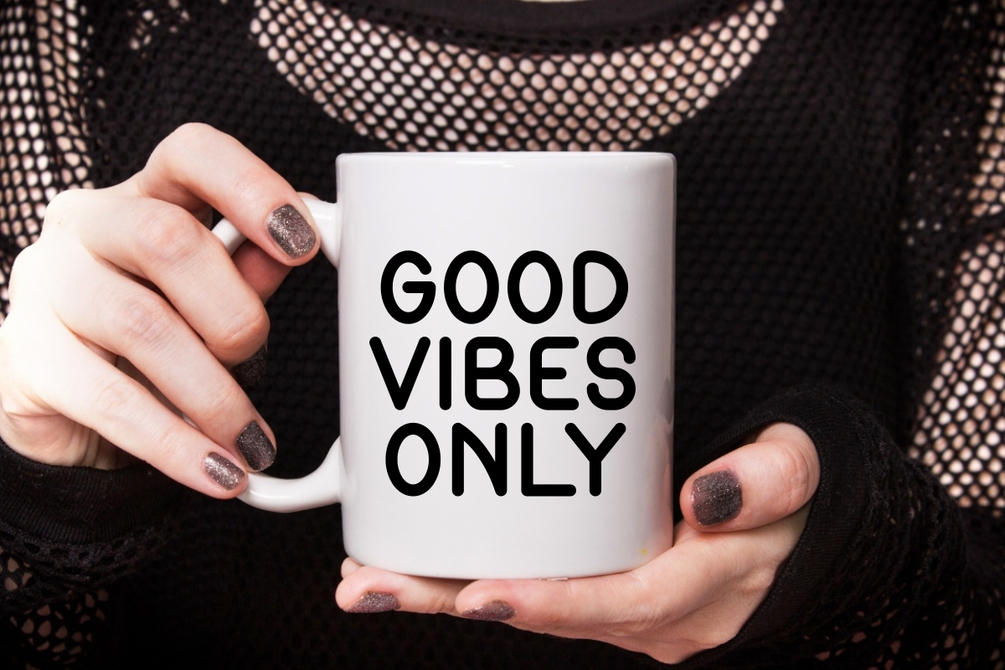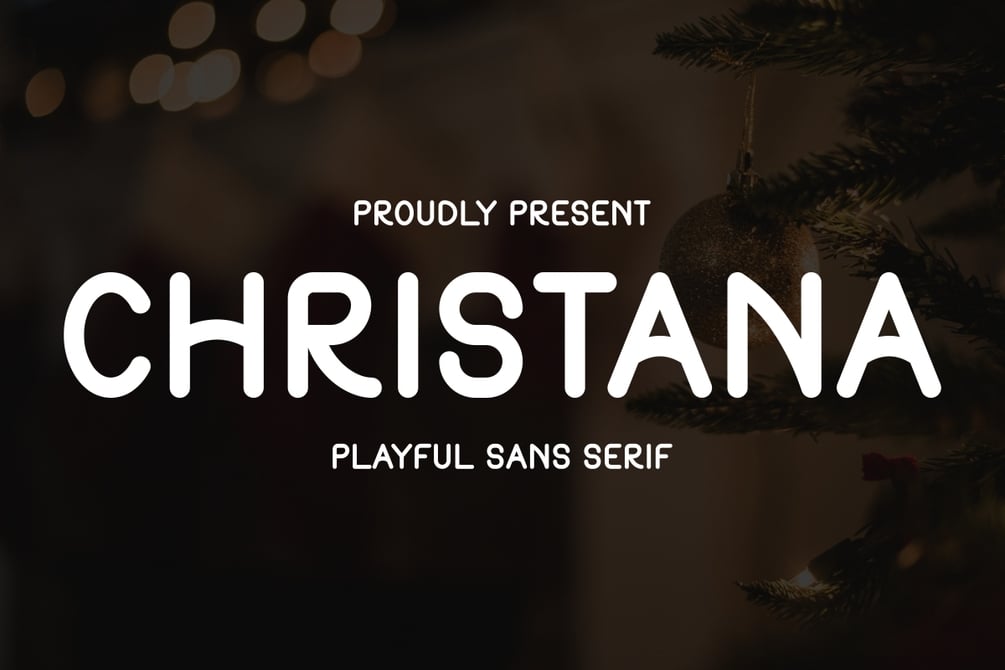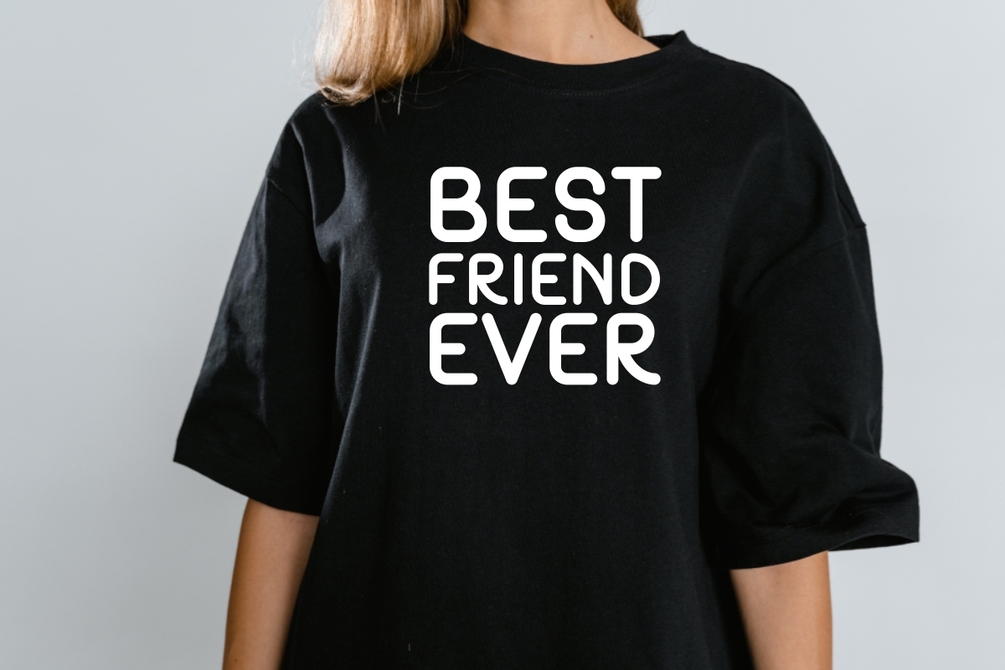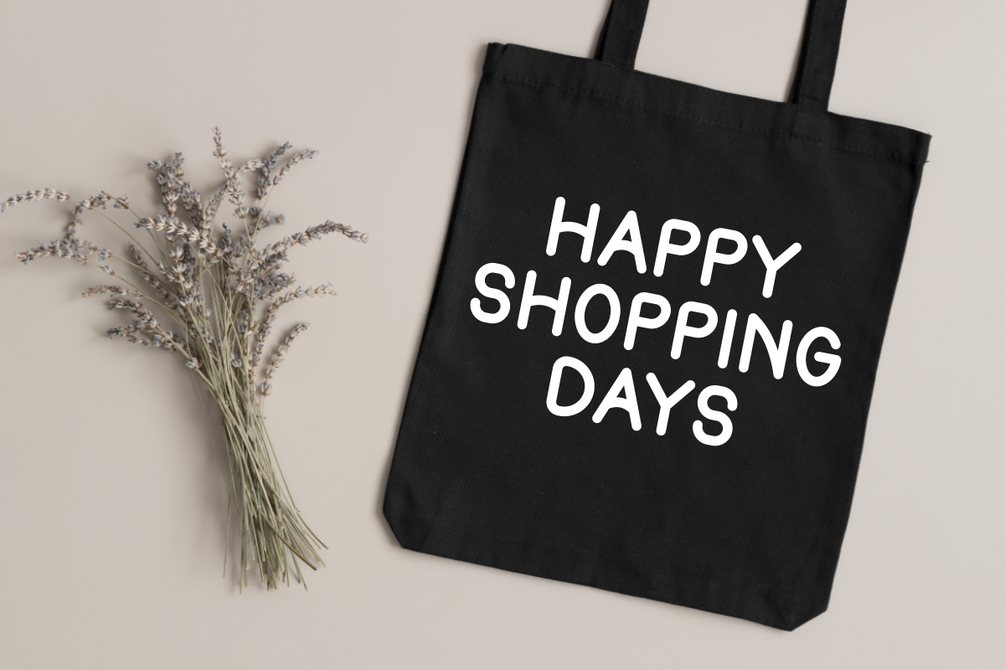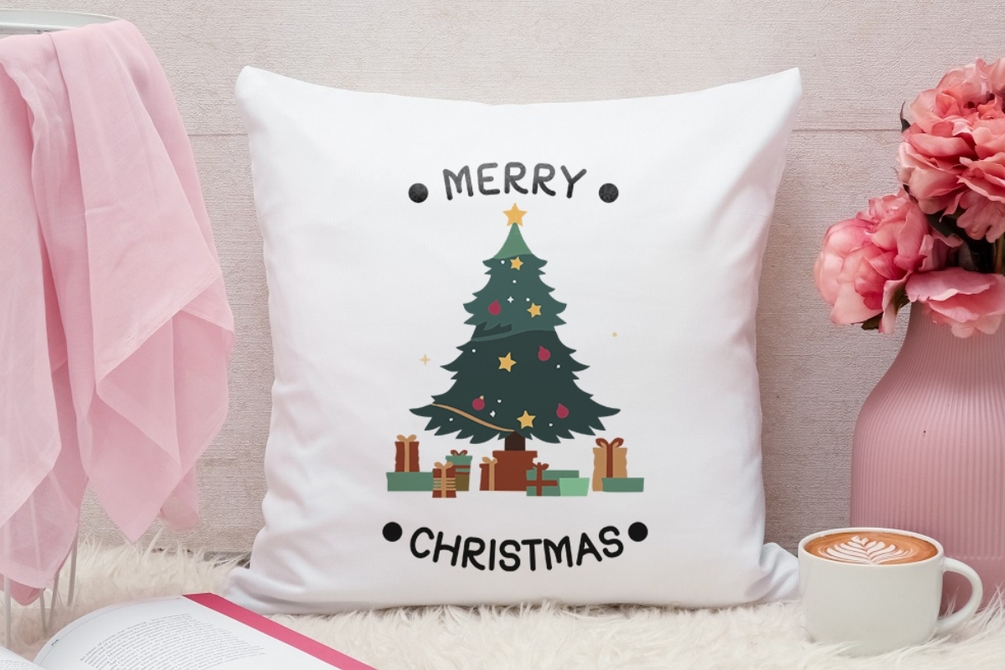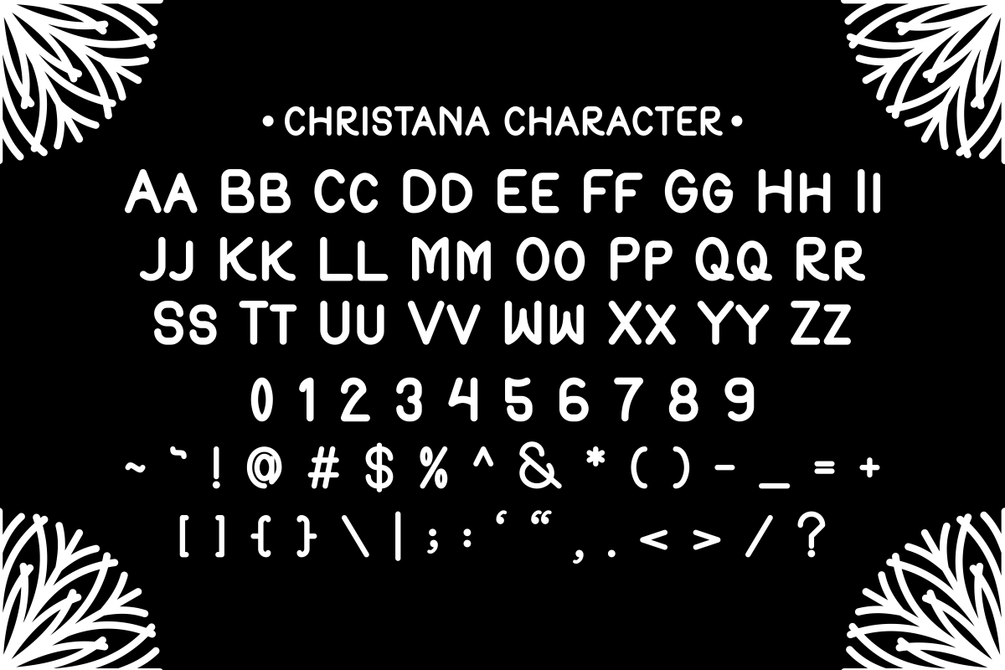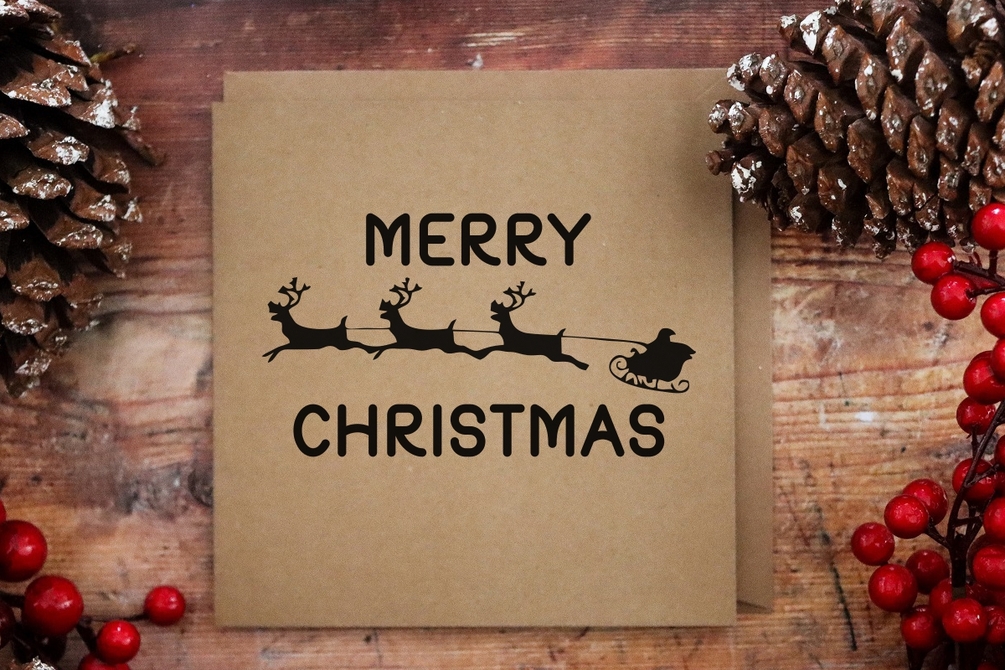
Christana - Cute Display Font
Christana is a playful sans serif font to infuse the magic of Christmas into your designs. This charming and festive font is meticulously designed to bring holiday cheer to all your creative projects. This font perfect for Holiday Greetings, Invitations, Gift Wrapping, Decoration, Digital Art, Crafting and others.